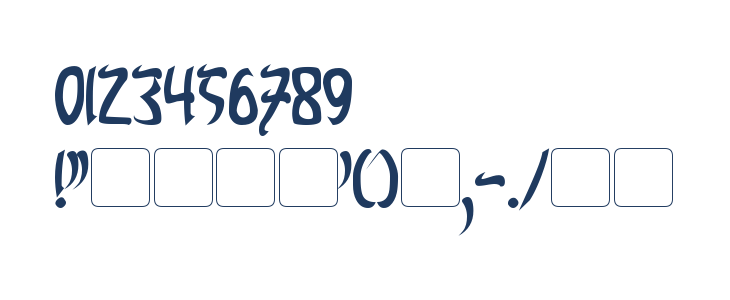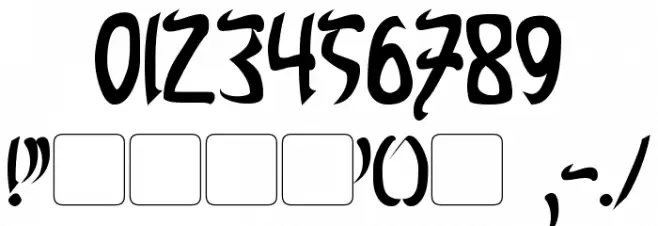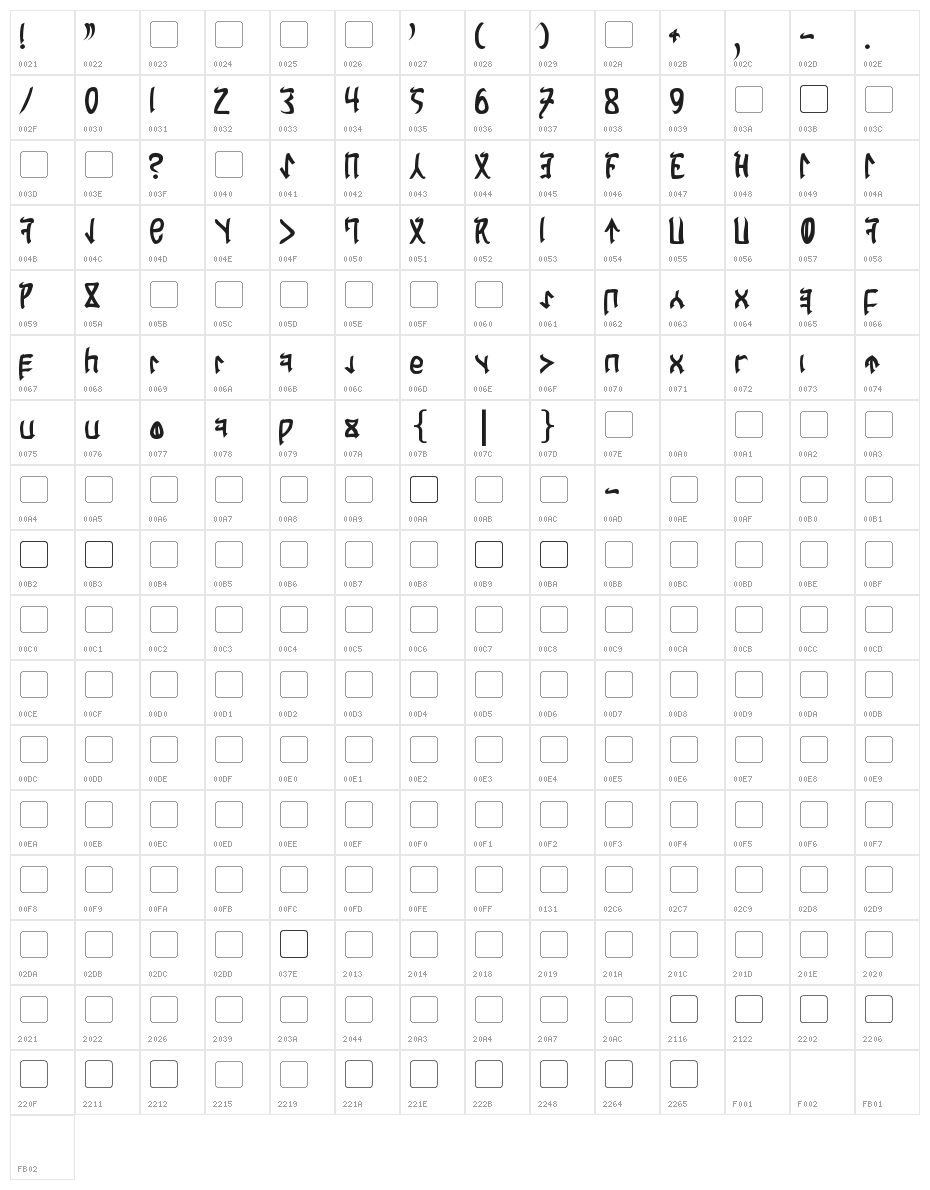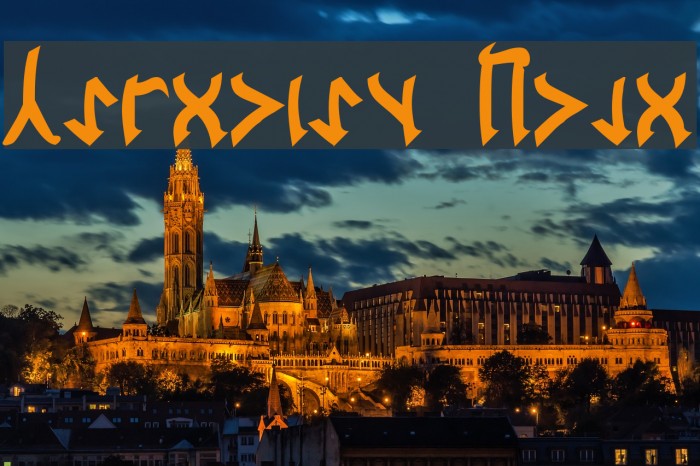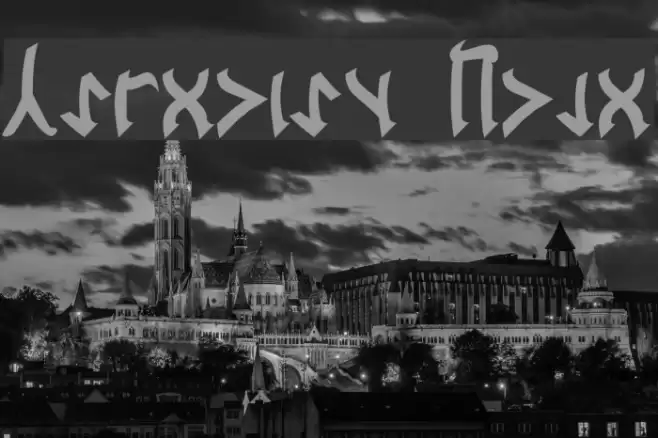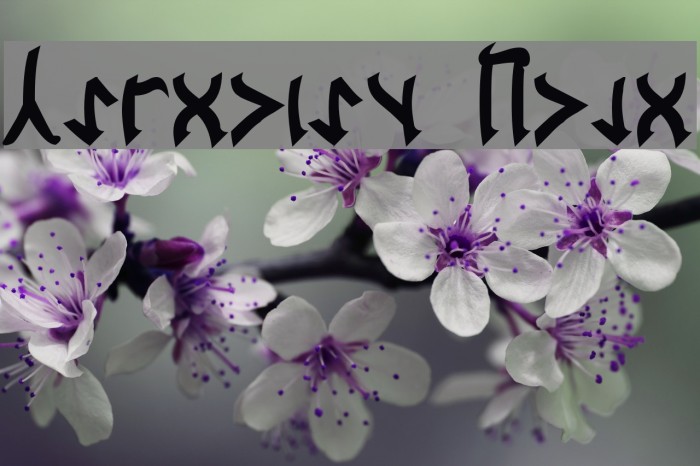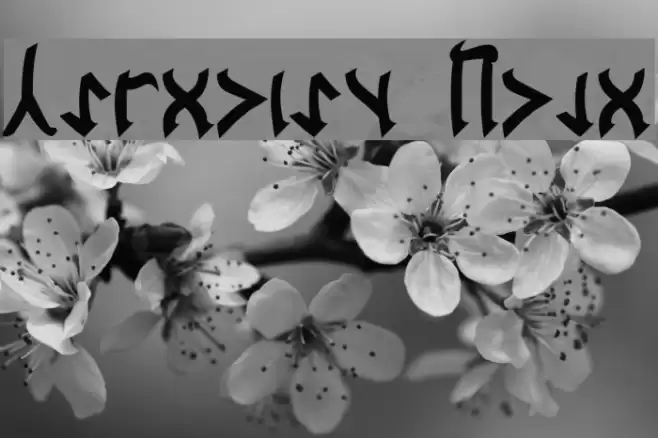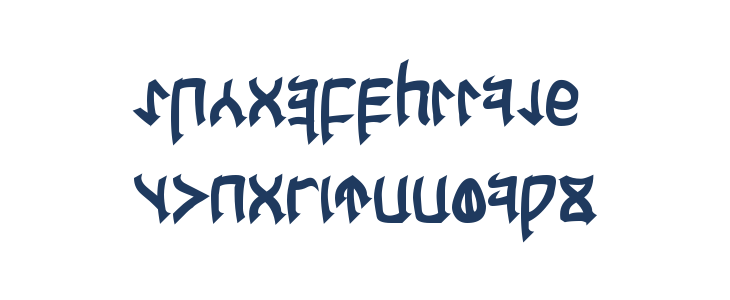
Cardosan Bold Font
Cardosan Bold Description
This font features a bold and striking design with a unique, angular style. The characters are heavily stylized, with sharp edges and a distinct geometric influence. The uppercase letters are particularly prominent, showcasing a sense of strength and assertiveness. The lowercase letters maintain the same boldness, ensuring consistency throughout. Numbers are equally bold, making them stand out effectively. Special characters are creatively designed, adding to the font's overall uniqueness. This font is ideal for projects that require a strong visual impact and a modern, edgy aesthetic.